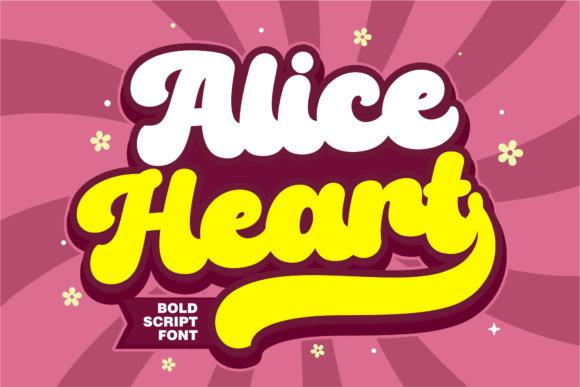
Looking for the perfect font to add a special retro touch to your design ideas? Look no further than Alice Heart Font! Created by Holydie Studio, this groovy bold font is a must-have for anyone seeking the best fonts for magazine design.
Alice Heart Font is more than just a font, it's a masterpiece of design. This display font is expertly crafted to elevate your creative ideas to new heights. Whether you're designing a magazine cover or creating graphics for your website, Alice Heart Font will help you achieve the perfect look.
With its bold and captivating style, Alice Heart Font is perfect for grabbing attention and making a statement. It's the ideal choice for anyone looking to add a touch of retro style to their designs.
But Alice Heart Font isn't just a pretty face - it's also incredibly versatile. Use it for headlines, titles, or body text, and watch as your designs come to life.